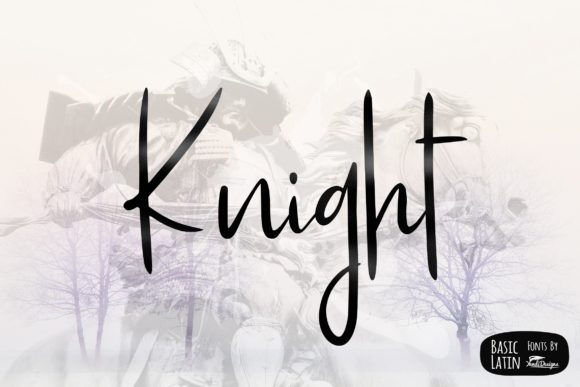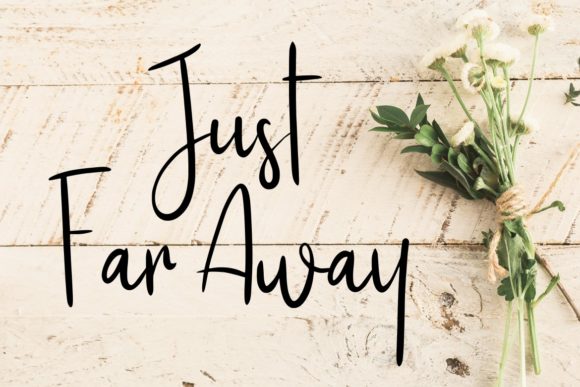
Knight Font
About Knight Font
Knight is a stylish handwritten brush font suitable for projects such as logos, book covers, t-shirt designs and much more.
Give your next design an elegant look with this unique font.